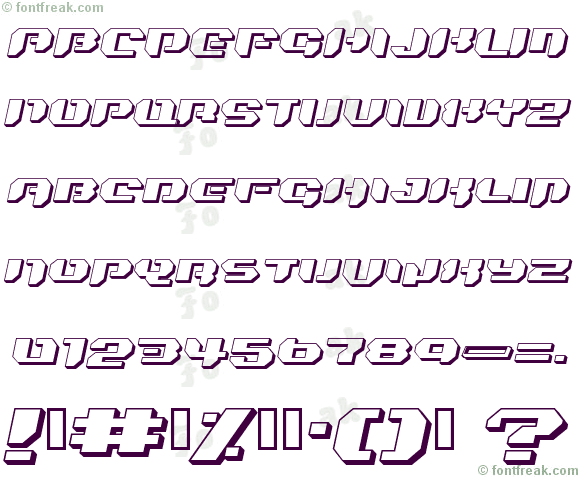
About Bionic Kid
Bionic Kid, designed by Pizzadude, is a striking display font that perfectly captures the playful essence of childhood while incorporating a futuristic twist. This freeware font features a slanted design that adds a dynamic feel, making it an excellent choice for projects that demand a sense of movement and energy. The letters are characterized by a bold stroke weight and a three-dimensional appearance, which gives them depth and a captivating visual impact. The spacing between characters is well-balanced, ensuring readability while maintaining a fun, quirky aesthetic.
Ideal for various creative applications, Bionic Kid stands out in contexts such as children's book covers, vibrant movie posters, and engaging promotional materials for events aimed at younger audiences. Its unique style makes it suitable for toy packaging, educational resources, and even graphic t-shirts that aim to communicate a sense of whimsy and adventure. Small business owners seeking to attract families or children will find this font particularly useful in their branding efforts.
The target audience for this font includes graphic designers, content creators, and anyone involved in marketing or branding for products aimed at children or the youthful spirit. Its versatility allows designers to experiment with various layouts and uses, making it a valuable addition to any creative toolkit.
What sets the Bionic Kid font apart is its ability to merge a childlike wonder with modern design elements, resulting in a typeface that is both fun and functional. This font not only stands out visually but also embodies a sense of freedom and creativity that resonates with its users. For anyone looking to infuse their projects with personality, the Bionic Kid font free download is an opportunity not to be missed.